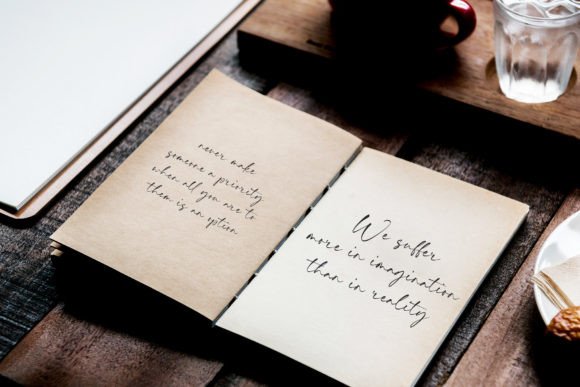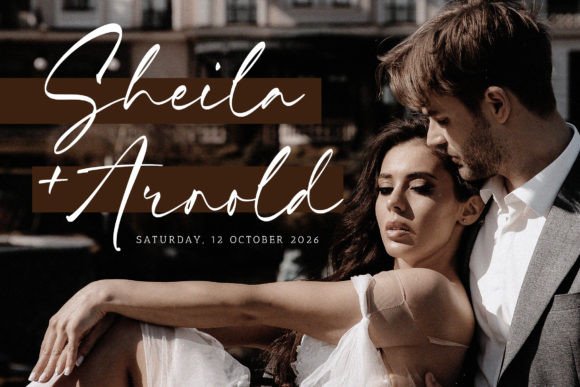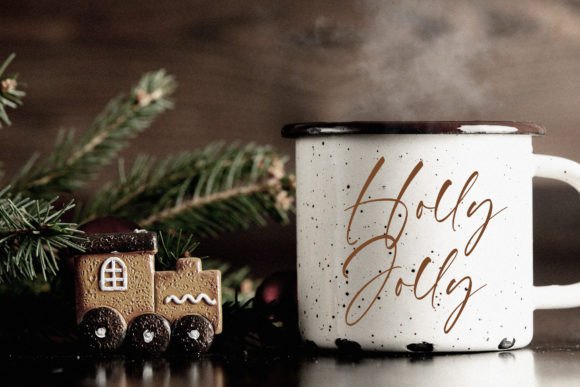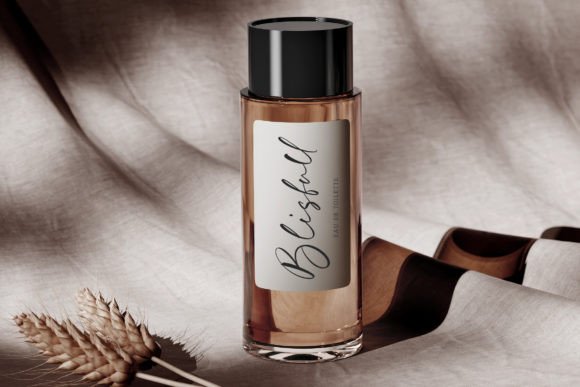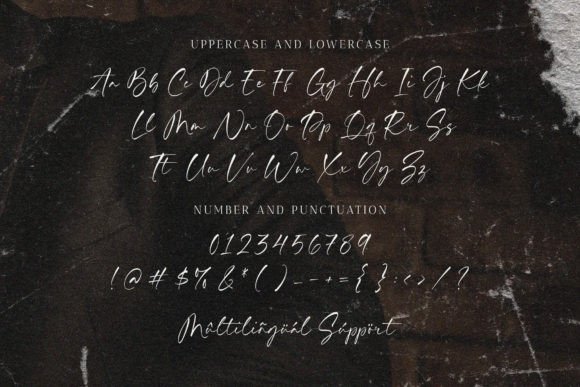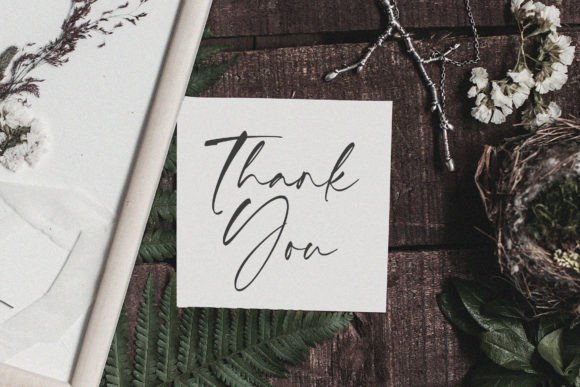
Introduction to Richard Hampton Font
Remember that moment when you’re working on a creative project, and you’re searching for the perfect font to give it that extra oomph? The right font can make all the difference, elevating your design from ordinary to extraordinary. For those who are always on the lookout for unique and elegant fonts, we’re excited to introduce you to the Richard Hampton Font – a dainty and delicate handwritten font that’s sure to capture your heart.
Whether you’re designing a wedding invitation, a birthday card, or a simple letterhead, the Richard Hampton Font is an ideal choice. Its sweet and delicate swashes will add a touch of whimsy and romance to your design, making it a valuable resource for designers who want to create something truly special.
Key Features of Richard Hampton Font
- Unique, high-quality design: The Richard Hampton Font is a distinctive and creative design resource ideal for various projects.
- Perfect for design projects: The Richard Hampton Font is an excellent choice for designers working on various creative projects, including print and digital media.
Honest Review: Richard Hampton Font
As a designer, I’m always on the lookout for high-quality design resources that can elevate my creative projects. Recently, I stumbled upon the Richard Hampton Font, and I’m excited to share my honest review with you.
- ✨ The font is incredibly versatile, with a beautiful mix of modern and vintage elements that make it perfect for a wide range of creative projects.
- ⚠️ The font may not be suitable for formal or professional projects, as it has a more casual, playful feel.
- ⚠️ The font may require some customization to get the perfect look, depending on the specific design requirements.
Overall, I’m really impressed with the Richard Hampton Font. It’s a high-quality design resource that’s perfect for creative projects where you want to add a touch of personality and whimsy. Whether you’re working on a blog post, social media graphic, or even a wedding invitation, this font is definitely worth checking out.
How to Use Richard Hampton Font
To get the most out of the Richard Hampton Font, use it in creative projects where its unique design will shine. Experiment with different font sizes, colors, and combinations to create visually appealing designs.
The Richard Hampton Font is perfect for creative projects such as:
- Reports
- Logos
- Graphics
Alternatives to Richard Hampton Font
Fontin is a high-quality sans-serif font suitable for creative projects that require a modern look. It’s available for free download and features a transparent background, making it ideal for use on any design resource. Fontin is a great alternative to Richard Hampton Font for designers who want a clean and minimalist aesthetic.
When to use: Logos, business cards, and websites that require a clean and modern design.
Comparison: Fontin has a more minimalist design compared to Richard Hampton Font, making it a great choice for designers who want a simple yet effective look.